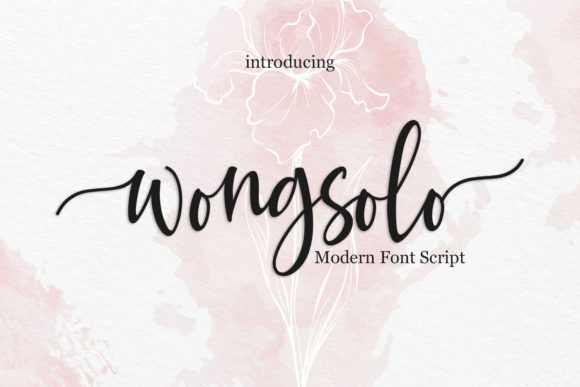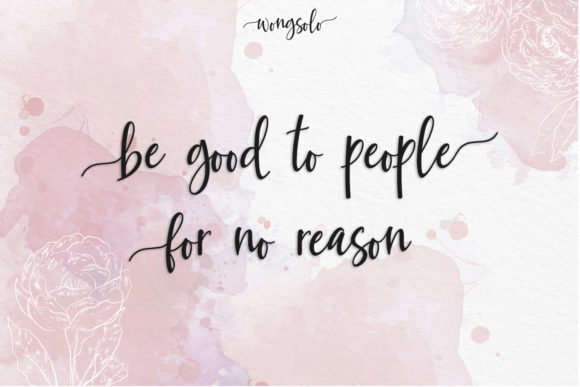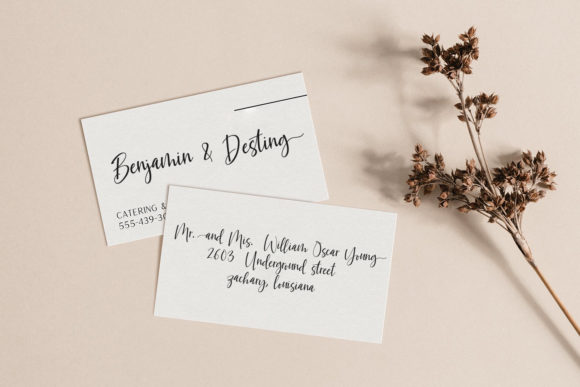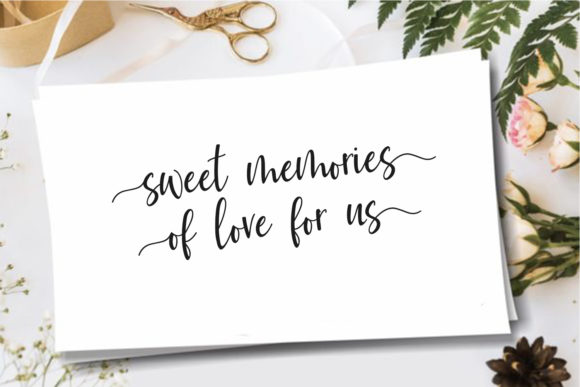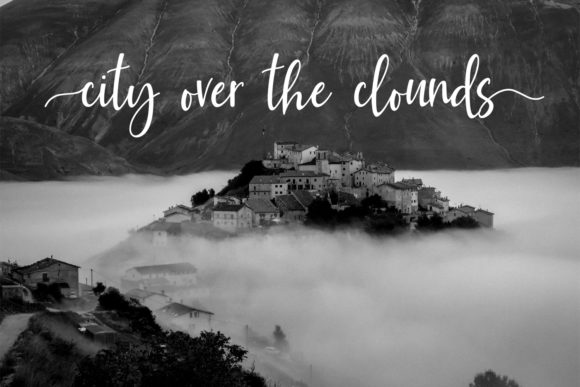
Wongsolo Font
About Wongsolo Font
Wongsolo is a sweet, romantic and flowing handwritten font. It looks lovely on wedding invitations, thank you cards, quotes, greeting cards, logos, business cards and every other design which needs a handwritten touch.